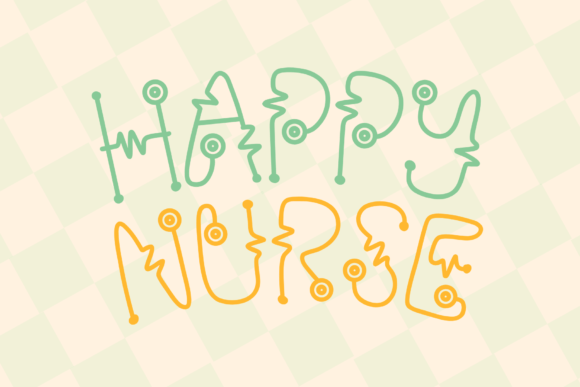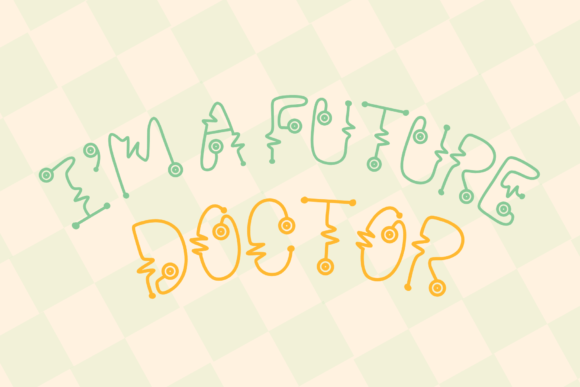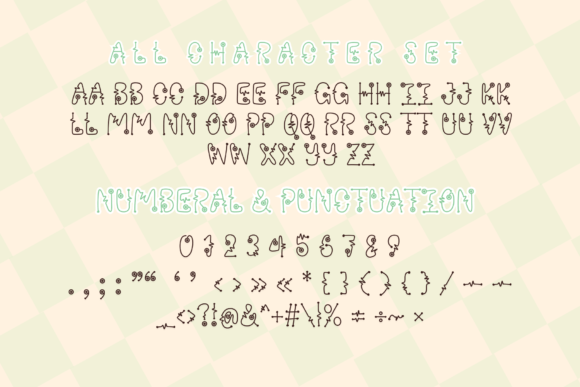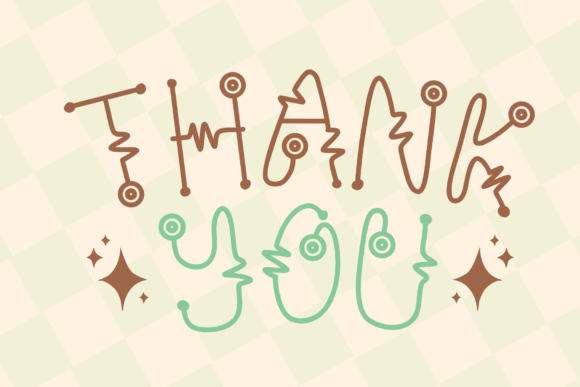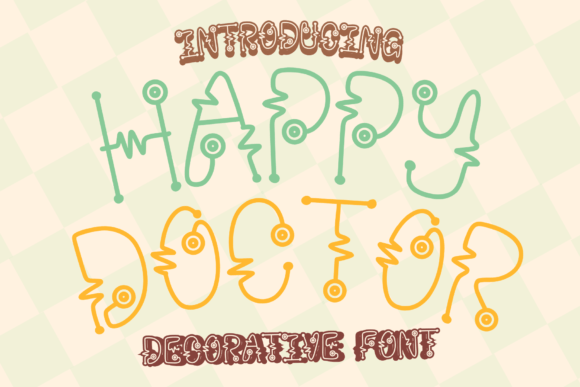
Introducing Happy Doctor Font: The Perfect Choice for Playful and Authentic Designs
Are you a designer or crafter looking for a font that embodies playfulness and authenticity? Look no further than the Happy Doctor Font! This cute decorative font is perfect for adding a touch of whimsy and fun to your designs, making it ideal for a wide range of projects.
What is Happy Doctor Font?
Happy Doctor Font is a unique and charming font that is sure to capture the attention of your audience. Its playful and authentic style makes it perfect for use in various design projects, from blog posts and logos to branding and advertising. Whether you’re creating invitations, greeting cards, planners, photo albums, or decorations, Happy Doctor Font is the perfect choice.
Key Features of Happy Doctor Font
- Playful and Authentic Style: Happy Doctor Font has a unique and charming style that is sure to add a touch of whimsy and fun to your designs.
- Cute and Decorative: This font is perfect for designers and crafters who want to add a touch of cuteness and decoration to their projects.
- Versatile: Happy Doctor Font can be used in a wide range of projects, from blog posts and logos to branding and advertising.
Uses of Happy Doctor Font
Happy Doctor Font is perfect for a wide range of projects, including:
- Blog Posts: Add a touch of whimsy and fun to your blog posts with Happy Doctor Font.
- Logos and Branding: Use Happy Doctor Font to create unique and memorable logos and branding materials.
- Advertising: This font is perfect for creating eye-catching and effective ads.
- Invitations and Greeting Cards: Add a touch of cuteness and personality to your invitations and greeting cards with Happy Doctor Font.
- Planners and Photo Albums: Use Happy Doctor Font to add a touch of whimsy and fun to your planners and photo albums.
- Decorations: This font is perfect for creating cute and decorative elements for your designs.
Why Choose Happy Doctor Font?
There are many reasons why Happy Doctor Font is the perfect choice for designers and crafters. Here are just a few:
- Unique and Charming Style: Happy Doctor Font has a unique and charming style that is sure to capture the attention of your audience.
- Versatile: Happy Doctor Font can be used in a wide range of projects, making it a great addition to your font collection.
Tips for Using Happy Doctor Font
Here are a few tips for using Happy Doctor Font in your designs:
- Use it with Other Fonts: Happy Doctor Font pairs well with other fonts, so don’t be afraid to use it with other fonts to create a unique and interesting design.
- Add Decorative Elements: Use Happy Doctor Font to add decorative elements to your design, such as borders and frames.
In conclusion, Happy Doctor Font is a cute and decorative font that is perfect for designers and crafters who want to add a touch of whimsy and fun to their designs. Its playful and authentic style makes it ideal for use in a wide range of projects, from blog posts and logos to branding and advertising. With its easy-to-use design and versatile style, Happy Doctor Font is a great addition to any font collection.